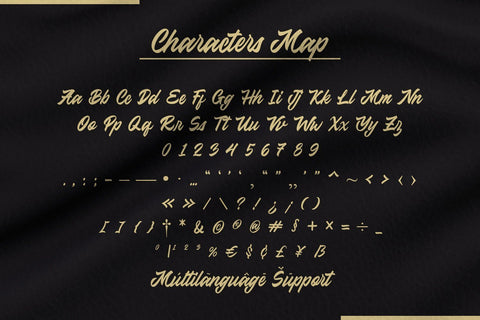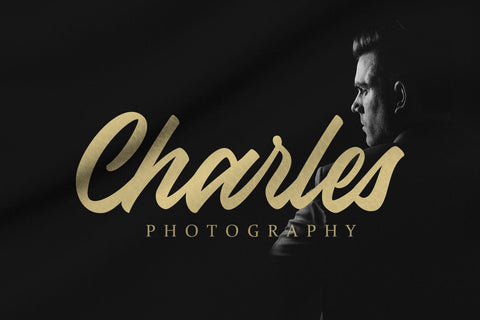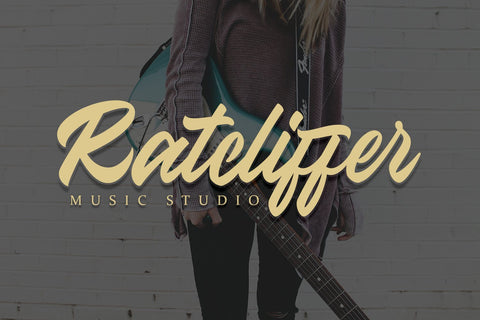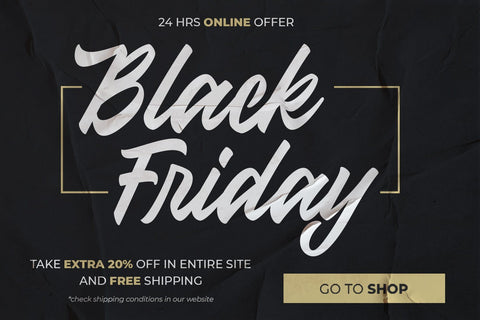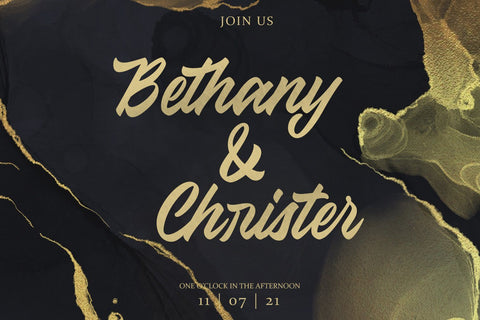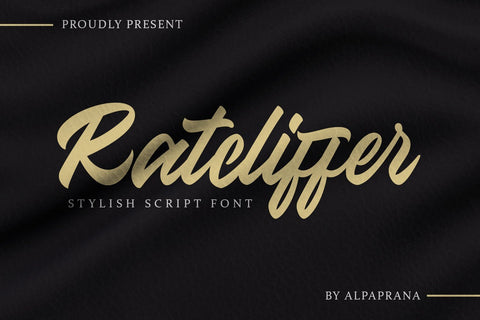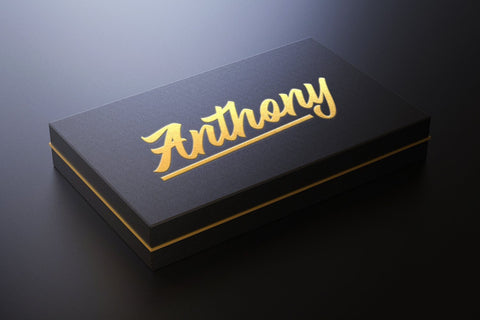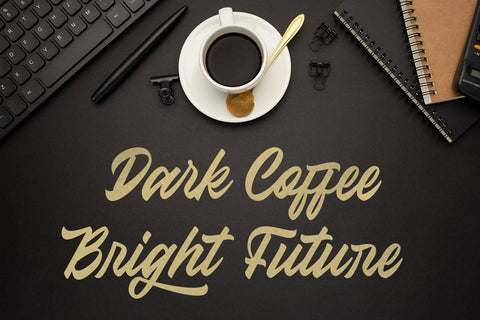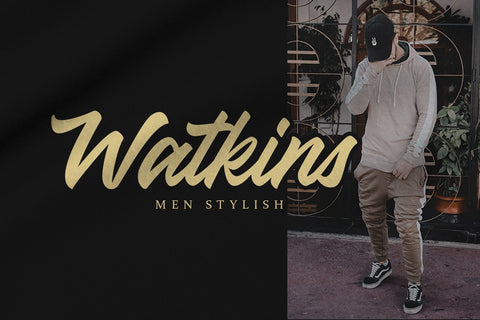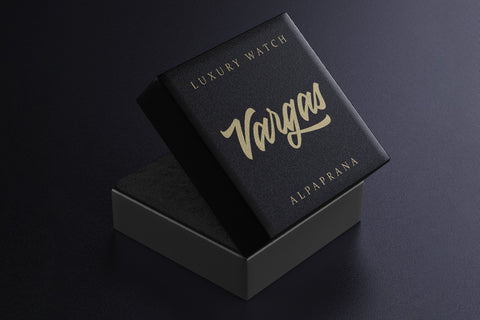
Ratcliffer - Modern Script Font
Ratcliffer is a stunning modern style script font with authentic and casual feels. It will be perfectly used for Branding, Logo Design, Lettering, Logotype, Clothing, Poster, magazine, packaging, posters, shopping bags, t-shirts, book covers, photography, special events and other design project.